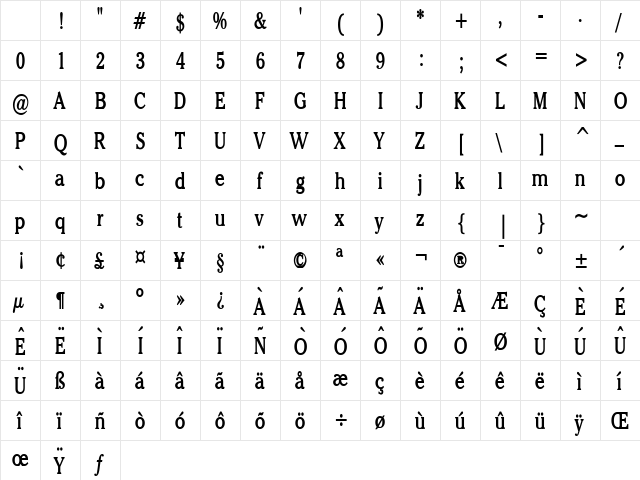
Complete Chelsey Thin Bold glyph index. Displaying only characters natively supported by Chelsey Thin Bold font.
Chelsey Thin is a composed and adaptable typeface that performs quietly and consistently across a wide range of design contexts. Its bold stroke weight gives it real presence on the page.